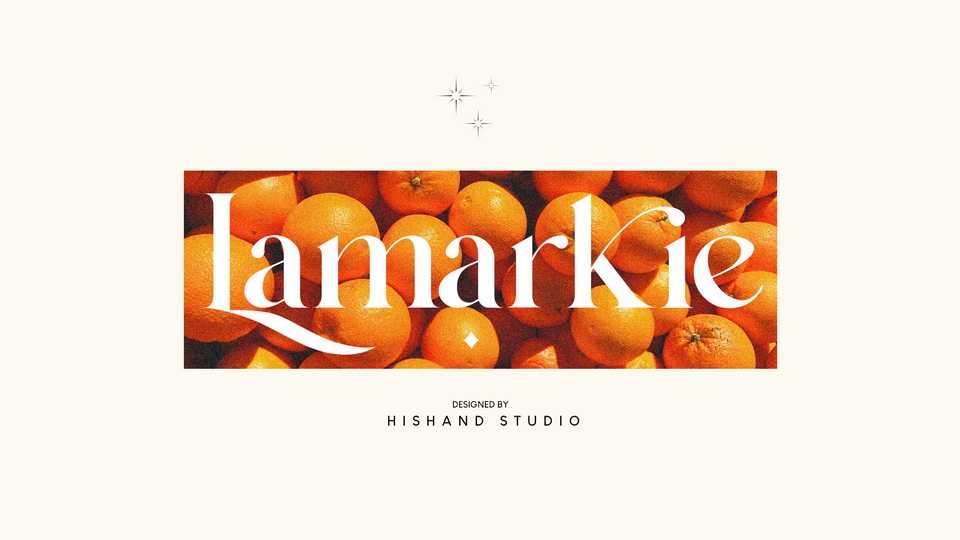
Download Lamarkie font, a classic yet modern serif typeface with lots of style. For those who are needing a touch of elegancy, stylish, classy, chic, and modernity for your design, Lamarkie font was created for you.